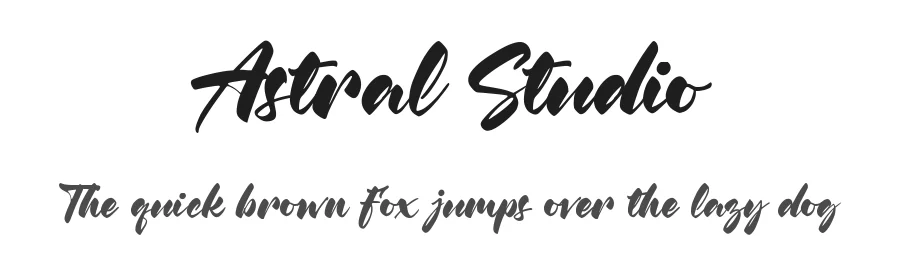
About Bangela Font
Bangela Specifications
| Font Family | Bangela |
| Full Name | Bangela |
| Glyph Count | 221 glyphs |
| PostScript Name | Bangela |
| Designer | Vultype Co |
Bangela ships with 2 OpenType features you can switch on in apps that support them (Illustrator, InDesign, Affinity, Figma, CSS font-feature-settings).
Bangela supports 126 languages.
Bangela Font is a script font that shines as a display or heading face. Pair it with a clean sans-serif or serif font for body text β the contrast creates a clear hierarchy while the two styles stay balanced and easy to read.
Bangela Font
by Vultype